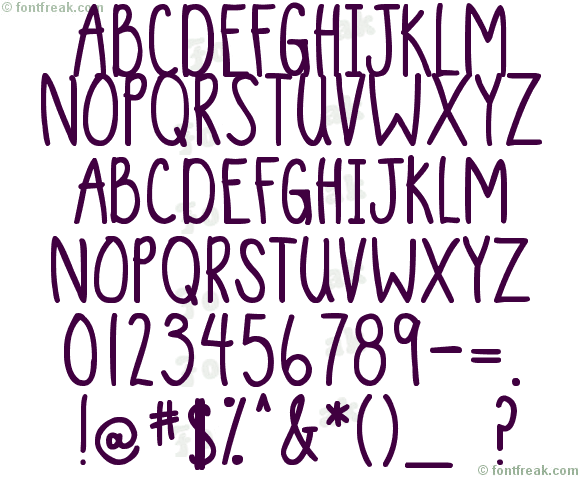
DJB Sand Shoes and a Fez
About DJB Sand Shoes and a Fez
DJB Sand Shoes and a Fez by Darcy Baldwin is a captivating handwritten font that exudes a playful yet sophisticated charm. This display typeface features a unique blend of rounded edges and casual strokes, creating an inviting and approachable aesthetic. The overall stroke weight is consistent, with subtle variations that add character without overwhelming the viewer. The spacing between characters is generous, enhancing readability and making it perfect for various design applications.
This font shines in several specific use cases. It is particularly well-suited for wedding invitations, where its whimsical nature can add a personal touch to the celebration. Additionally, DJB Sand Shoes and a Fez works beautifully on restaurant menus, helping to create a relaxed atmosphere that encourages diners to enjoy their meals. Graphic designers can leverage this font for branding projects, especially when aiming to convey a friendly and modern identity. It also excels in crafting unique greeting cards, allowing creators to express heartfelt messages with style. Lastly, its playful design makes it an excellent choice for children's book covers, capturing the imagination of young readers.
Target audiences for DJB Sand Shoes and a Fez include graphic designers, small business owners, and content creators who seek to infuse their projects with a distinctive flair. The font's versatility makes it a valuable addition to any designer’s toolkit, whether they are working on digital or print media.
What sets the DJB Sand Shoes and a Fez font apart is its ability to balance fun and professionalism. Its handwritten style brings warmth to any message, making it more relatable and engaging. For those looking to enhance their design projects, the DJB Sand Shoes and a Fez font free download offers an exceptional opportunity to incorporate this unique typeface into their work.